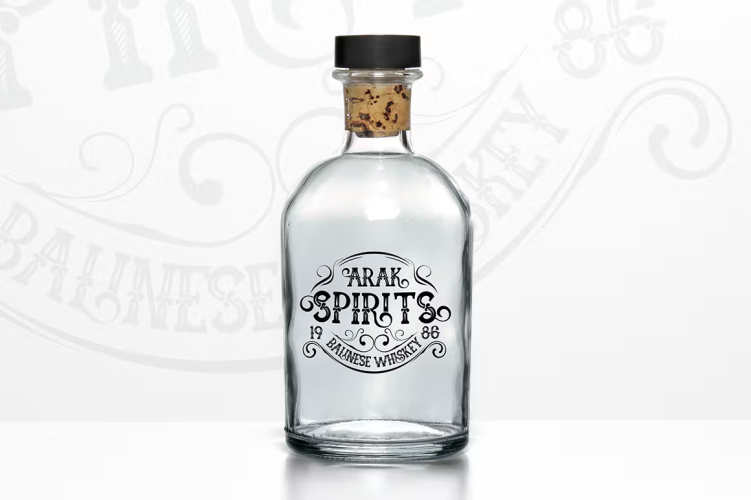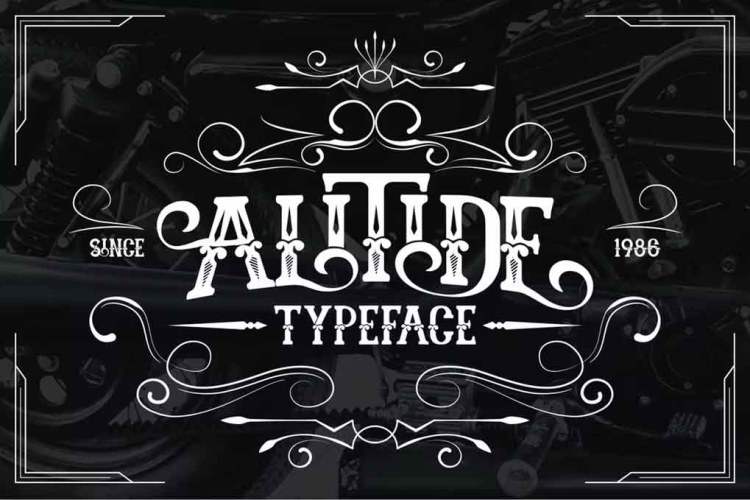
ALITIDE Typeface Font
Introducing western style display typeface it’s a ALITIDE TYPEFACE Allcaps font with modern western style. OpenType features with Stylistic Alternates. To access the alternat glyphs, you need a program that supports OpenType features such as Adobe Illustrator CS and Adobe Indesign. You can use this font for various purposes. such as logo, t-shirt, posters, lable, letterhead, book cover and etc.
ALITIDE Typeface Font is a Serif Fonts font that brings a professional and versatile look to your projects. Introducing western style display typeface it’s a ALITIDE TYPEFACE Allcaps font with modern western style.